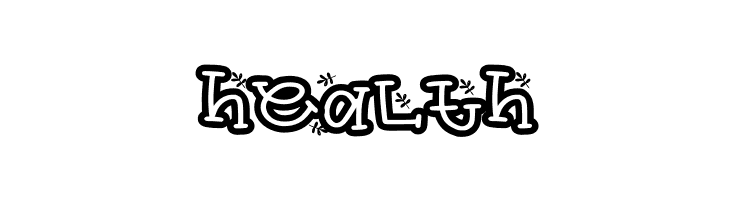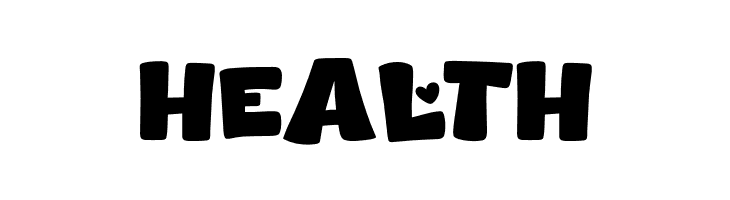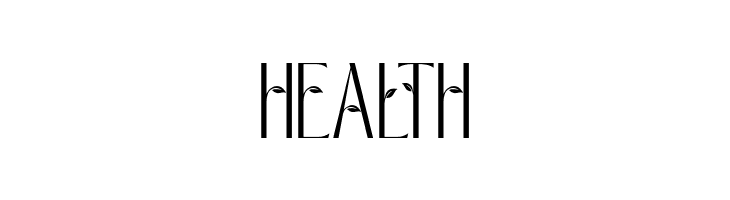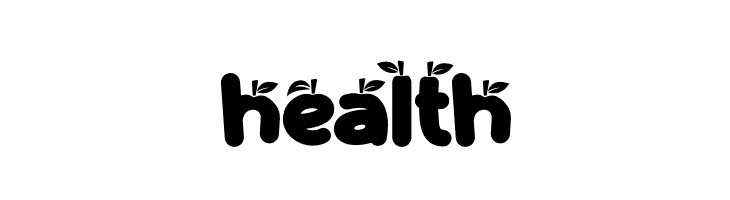
A diverse set of decorative and plain frame glyphs.
Eclectic dingbat font with diverse symbols and decorative motifs.
Ornamental display set with African geometric motifs.
A festive, decorative font with playful holiday embellishments.
A futuristic, geometric font with a digital, mechanical aesthetic.
A whimsical, decorative font with rose motifs and a handwritten style.
A decorative symbol font featuring detailed black animal and human silhouettes.
Highly decorative ornamental frames and boxes.
A bold, decorative set of ornamental and symbolic glyphs.
A decorative symbol font with diverse cross and religious motifs.
Ornamental floral and flourish dingbats with a vintage feel.
Ornamental fleurons and decorative motifs with a vintage, classical style.
Ornate penmanship flourishes and feather illustrations.
Ornate, hand-drawn calligraphic frames with vintage flair.
Ornate hand-drawn calligraphic frames with vintage flourishes.
Ornate botanical and vegetable-themed dingbat illustrations.
A playful, hand-drawn font with letters in doodled squares and pencil accents.
A futuristic, geometric font with bold strokes and unique dot accents.
A decorative border and dingbat set with assorted intricate motifs.
A decorative font with characters inside heart shapes with floral accents.
A novelty font made up of assorted decorative frame outlines.
A whimsical, cloud-encased font with winged accents, perfect for playful designs.
A playful, rounded font with heart-shaped accents and a whimsical style.
A playful, handwritten font with heart-shaped accents and a bold, rounded style.
A playful handwritten font with heart-shaped accents and a whimsical style.
Ornate heart and floral decorative pattern.
A bold, decorative icon set with diverse abstract and pictorial symbols.
A playful, hand-drawn outline font with bold accents.
Pattern-based decorative font with geometric and ornamental motifs.
Ornamental geometric border font with Art Deco influence.
A playful, cartoonish font with bold outlines and whimsical, fluffy accents.